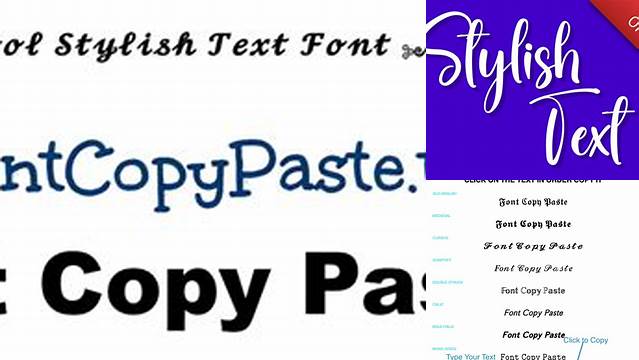
Get Stylish Fonts: Copy And Paste Free!
Hey there, design enthusiasts and social media gurus! Are you ready to jazz up your text game? Looking for a way to inject some personality and flair into your content without the hassle of complex software or tedious downloads? Well, you're in the right place! This guide is all about stylish fonts, specifically how to find, copy, and paste them for free, making your text pop and grab attention. Forget boring, generic fonts – we're diving into a world of creativity where you can instantly transform your words into eye-catching visuals. So, let's get started and unlock the secrets to stylish typography that’s both accessible and free. We'll explore a variety of font styles, how to use them across different platforms, and tips to make your text stand out from the crowd. Get ready to level up your font game and impress your audience with effortlessly stylish text!
H2: Discovering the World of Free Stylish Fonts
Alright guys, let's kick things off with the basics: where do you even find these awesome stylish fonts? The internet is your oyster, filled with tons of websites offering a vast collection of fonts for you to copy and paste. One of the most popular sources is Font Squirrel, known for its high-quality, free fonts that are often licensed for commercial use. You'll also find great selections on Google Fonts, which is super easy to use and integrates seamlessly with many platforms. Then there's DaFont, a classic choice with a massive library, though you should always double-check the license before using their fonts for commercial projects. Don't forget about websites like 1001 Fonts, offering a huge range, though again, license checking is key.
Navigating these sites can feel a bit like treasure hunting. You'll encounter fonts categorized by style: serif, sans-serif, script, monospace, and decorative. Each category has sub-categories, allowing you to narrow down your search based on your specific needs. For example, within the script category, you might find elegant calligraphy-style fonts, playful handwritten fonts, or even modern brush fonts. The key is to experiment! Try different fonts to see what fits your brand or message best. When browsing, look for the "free for personal use" or "open license" tags to ensure you can use the font without legal worries. Also, pay attention to the font's character set. Does it include all the characters you need? Some fonts may lack specific symbols or accent marks. Always read the fine print! Check the licensing terms to understand how you can use the font – whether it’s for personal projects, commercial use, or both. Some fonts are free for personal use but require a license for commercial applications. Some may require you to provide attribution, while others have more permissive licenses. So, before you start using a font, make sure you fully understand its terms of use. You will find many awesome and stylish fonts.
H3: The Art of Font Selection: Choosing the Perfect Stylish Font
Choosing the perfect stylish font is more than just picking one that looks pretty; it's about understanding your message and audience. Think of your font choice as a key part of your brand's personality. Is your message formal, fun, or edgy? A classic serif font might be perfect for a sophisticated brand, while a bold, playful font could work for a children's toy company. Start by identifying your brand's core values and the impression you want to create. Consider the tone of your message. A handwritten font can convey a personal touch, while a clean, sans-serif font might suggest modernity and simplicity. Also, think about where your text will be used. Will it be on a website, social media, or printed materials? Each platform has different requirements and visual characteristics. For web use, ensure the font is web-safe and readable at different sizes. Avoid overly ornate or thin fonts that can be hard to read online.
Pay attention to font readability, and consider the context. Does the font work well in headlines, body text, and other text elements? Test the font on different backgrounds and at various sizes to ensure it remains legible. Mixing fonts can also enhance your design. A great strategy is to use one font for headlines and another for body text. However, limit the number of fonts you use, as too many can make your design look cluttered. Aim for a cohesive look with a maximum of two or three different fonts. There are many design guides and resources available online with tips on how to pair fonts effectively. Practice makes perfect! Experiment with different font combinations to see what works best for your brand. Test different font weights, sizes, and styles to see how they affect the overall look. Don't be afraid to mix and match fonts to create a unique look. Don't be afraid to break the rules! Sometimes, the most creative designs come from unexpected font combinations. Always consider your audience. Ensure that the fonts you use are accessible and appealing to your target demographic. Consider the cultural context as well. Some fonts and styles might be more or less appropriate depending on your audience's cultural background.
H2: Copy-Paste Magic: How to Use Stylish Fonts Instantly
So, you've found the perfect stylish font – now what? The beauty of copy-paste fonts is their simplicity. The process is straightforward, even for those who aren't tech-savvy. Once you've chosen a font from a website like those mentioned earlier, you'll typically find a box or a section where you can type in your text. You type your text into the generator, and it will convert your text into the chosen style. Then, you simply select the generated text and copy it. Once copied, it's time to paste it wherever you need it: social media posts, documents, emails, or graphic designs. It is a good idea to save the font website URL where you get the text from in case you want to edit it later. Be mindful of the platform's limitations. Some platforms might not support all font styles, or the font might appear differently depending on the device or browser. If your platform does not support the font directly, consider converting your text into an image to ensure the style appears as intended. There are many online tools for this purpose. It's also good to be aware of character limits, especially on social media. Your stylish font might take up more space than a standard font. So, shorten longer sentences if necessary. And always check how the pasted text looks. Review the pasted text on the target platform to ensure the font appears as expected. If something looks off, try a different font or re-copy the text. Play around with the formatting options available on the platform. Sometimes, you can adjust the size, color, and other attributes to enhance the overall look of your text. You might discover new and improved fonts. Be patient, the results are rewarding!
H3: Troubleshooting Common Copy-Paste Font Issues
Even though the process of copying and pasting stylish fonts is generally simple, you might encounter a few hiccups along the way. If your font doesn't appear as expected, the most common issue is platform compatibility. Certain platforms, such as some older websites or apps, may not support custom fonts. The solution is usually converting your text into an image or using a different font that is compatible with the platform. Another frequent problem is text rendering inconsistencies. Your font might look different on various devices and browsers due to differences in font rendering engines. Always check how your text looks on different devices to ensure consistency. In cases where your font appears as a default font or shows up as gibberish, there might be encoding issues. Make sure the text encoding is set to UTF-8, which is widely supported. There are some quick solutions for this. If the font displays incorrectly, double-check that you copied the entire text, not just a part of it. A missing character can mess up the display. Consider browser extensions. Some browser extensions are designed to display fonts correctly. Install these extensions if you frequently use custom fonts. Another thing to consider is the font licensing. If you're using the font for commercial purposes, ensure the license allows it. Using a font without the required license might cause legal issues. If the font looks pixelated or blurry, the size might be too small. Adjust the font size for better readability. Always refresh the page if the font has changed. When you are using the same font, this is a very simple but effective solution.
H2: Stylish Fonts for Social Media: Level Up Your Posts
Social media is all about standing out, and stylish fonts are your secret weapon. They're perfect for grabbing attention in the feed, conveying your brand's personality, and boosting engagement. Using unique fonts helps you create visually appealing posts that are instantly recognizable. This is especially useful on platforms like Instagram, Twitter, and Facebook, where the competition for attention is fierce. A well-chosen font can highlight important text, add emphasis, and convey a specific emotion or message. Think about using stylish fonts in your Instagram bio to make your profile stand out. In captions, use font variations to highlight key phrases, create interest, and guide your audience. Don't forget about stories! Stylish fonts are perfect for adding text overlays to your images and videos, enhancing visual storytelling, and making your content more dynamic. On platforms like TikTok, using fonts can give your videos a unique look, especially for text-based content or tutorials.
Experiment with different font styles to find the ones that resonate with your audience and align with your brand's aesthetic. Consistency is key! Develop a consistent font style to maintain brand recognition. This helps your followers recognize your content instantly. Also, consider your target audience. Choose fonts that appeal to your demographic and reflect their tastes and preferences. Keep it concise. On social media, it's better to be short and sweet. Use fonts to highlight key messages rather than overwhelm your audience with too much text. There are many other factors to consider. Consider the context. The right font can change the context of your post entirely. Use fonts to create a mood or highlight a certain point. Don't forget to balance the font with other visual elements like images, colors, and videos. A well-balanced design will make your posts more appealing. Always test how your font looks on different devices and browsers to ensure the best experience for your followers. Regularly update your style. Social media trends change rapidly, so keep an eye on what's new and experiment with different font styles to keep your content fresh.
H3: Font Combinations and Social Media Branding: Tips and Tricks
Creating a cohesive brand identity on social media requires more than just picking a stylish font; it's about crafting a consistent visual language that reflects your brand's personality. Using font combinations is an effective way to add visual interest and hierarchy to your content. Pair a stylish headline font with a readable body font. This approach makes your posts more visually appealing and makes information easy to scan. Select a font that reflects your brand's personality. This ensures consistency across all your content, which helps build brand recognition. The body font should be easy to read, especially in captions. This keeps your audience engaged.
When exploring these websites, use their advanced search features to refine your search. Filter by style, weight, and license. Look for fonts that are specifically licensed for your intended use, whether personal or commercial. Many of these sites also offer preview features that allow you to see how your text will look in the chosen font. Experiment with different font combinations. You can enhance your content and make it visually appealing. Also, try using font pairing tools, which analyze different combinations and suggest complementary fonts. Install a font manager. This will make it easy for you to organize and activate your fonts. Stay updated by subscribing to design blogs and newsletters. Learn about new fonts. Keep up with the latest trends. Join design communities and forums. You can seek inspiration. Always backup the fonts that you download. Backup copies prevent data loss. Never download fonts from unsafe sources. Be careful of downloading fonts from untrusted sources. Make sure you always check the licensing terms. This will protect you legally. Always be ready to learn and experiment. The world of font design is dynamic. You must adapt to new trends.